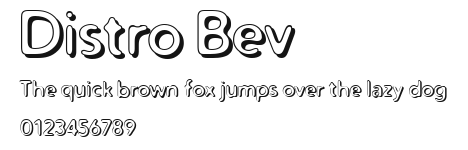
• Font Name: Distro Bev
• Full Font Name: Distro Bev
• Designer: Peter Ramsey & Apostrophe
About Distro Bev.ttf
Distro Bev.ttf is a modern, elegant sans-serif font designed for ultimate readability and visual harmony. Perfect for branding, headlines, web design, and print materials.